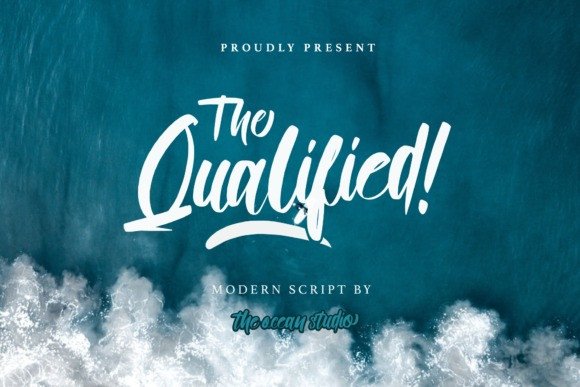
Qualified Script Font
Qualified is an equally modern and beautiful script that will turn any design idea into a true standout.
Comes with uppercase, lowercase, numerals, punctuations and so many variations on each character include OpenType alternates, common ligatures and also additional swash to let you customize your designs.